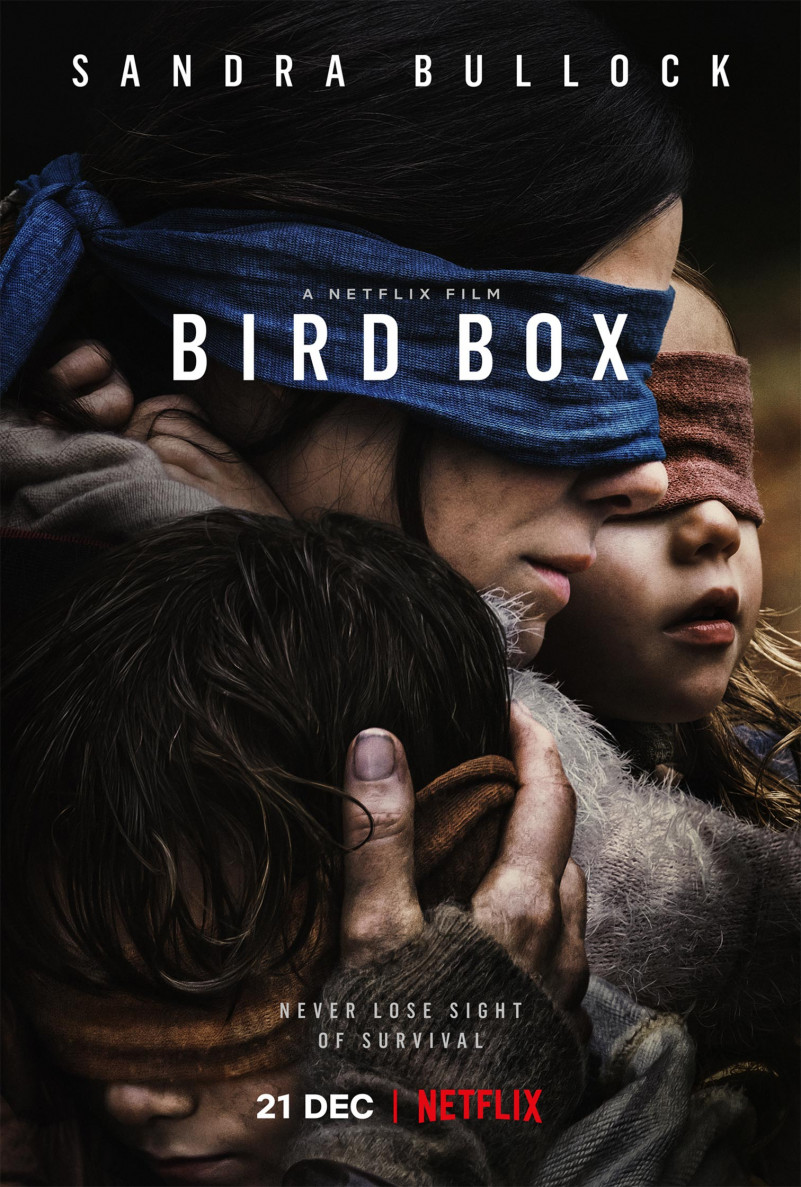
Bird Box Font
Bird Box is a 2018 American post-apocalyptic horror film directed by Susanne Bier from a screenplay written by Eric Heisserer, and based on the 2014 novel of the same name by Josh Malerman. The film follows a woman, played by Sandra Bullock, as she tries to protect herself and two children from malevolent supernatural entities that make people who look at them go insane and commit suicide.
What’s the font used for Bird Box Movies Font ?
The font used for Bird Box is Flama Condensed. Mário Feliciano’s Flama is an unornamented sans serif initially designed for signage which mixes aspects of European and American sans serifs. Flama was initally released with 5 weights in roman and italic, and is now 45 styles across 4 widths, including Thin weights which were commissioned by Black Book magazine. With its ‘neutral’ flavour, Flama proves to be highly efficient for signage, corporate as well as for editorial design.